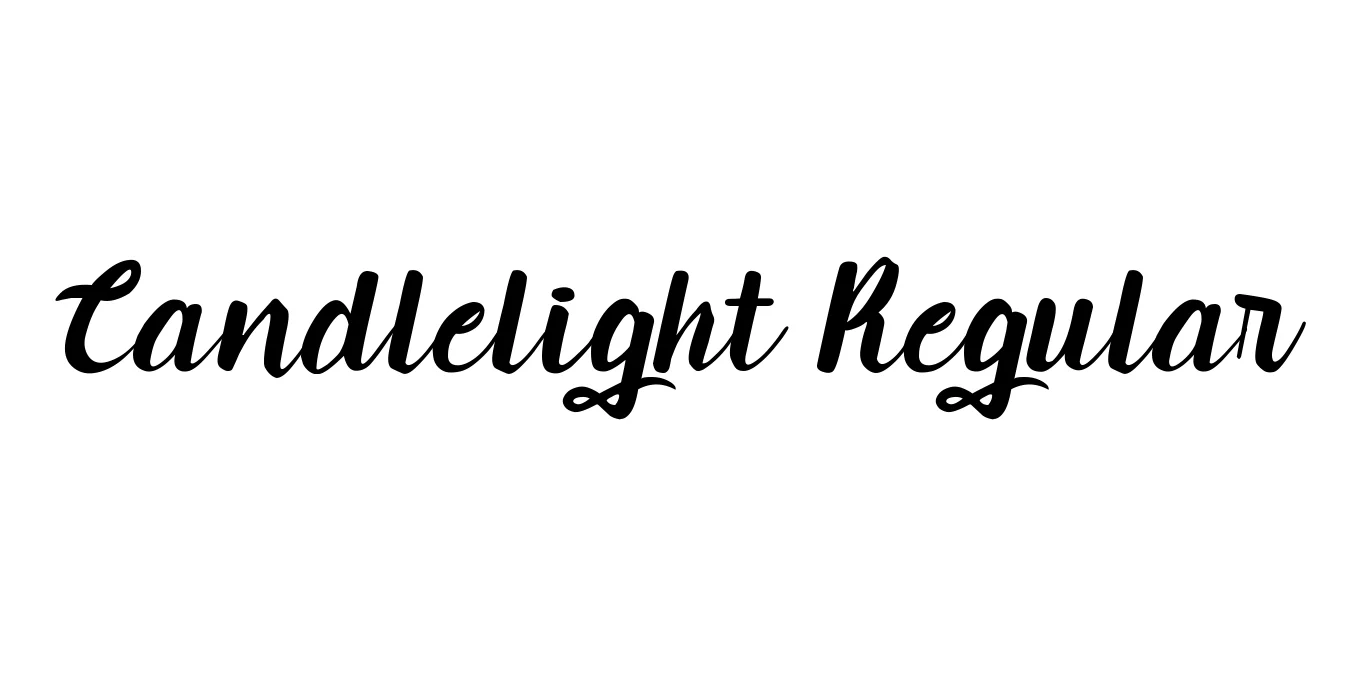
Candlelight Regular
| Font Name | Candlelight |
Candlelight Regular is a beautifully crafted script typeface that captures the essence of elegant, fluid handwriting. Created with a focus on rhythmic strokes and sophisticated ligatures, this font brings a touch of personal flair and high-end artistry to any design project. Its balanced proportions and graceful curves make it an ideal choice for projects that require a sense of intimacy and luxury.
The font was developed to bridge the gap between traditional calligraphy and modern digital design. The character set often includes a variety of alternates and swashes, allowing designers to create unique, custom-looking typography that feels authentically hand-drawn. Candlelight Regular remains a timeless choice for those seeking to convey warmth and class across both digital and print mediums.
Candlelight Regular Best Uses
Perfect for invitations, save-the-date cards, and elegant place settings.
Ideal for logos in the beauty, fashion, and lifestyle sectors.
Adds a sophisticated touch to magazine headlines and feature titles.
Great for creating evocative quotes and stylish visual overlays.